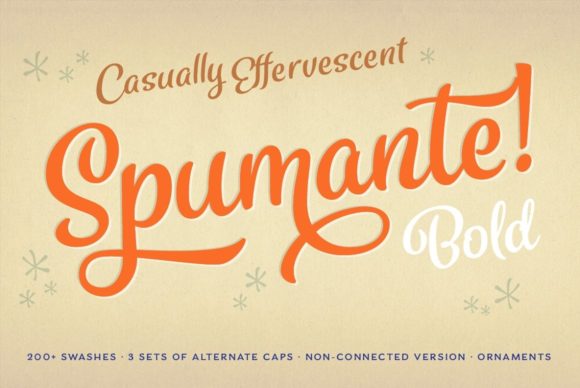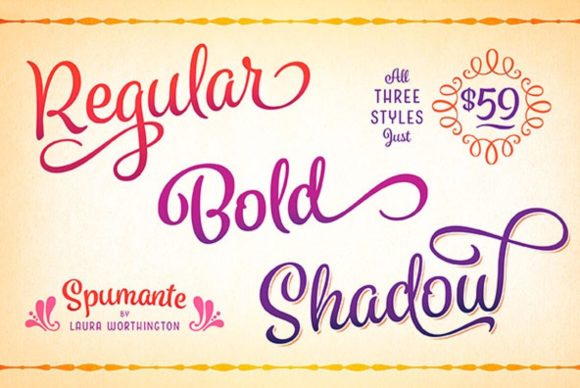
Spumante Font
db-ku.com - Script & Handwritten -- A slim, semi-connected script with lithely upright curves, Spumante conveys the casual effervescence of its namesake wine. Smoothed brush-script letterforms bounce gently along the baseline, and letters vary slightly in their slant— characteristics that combine to create a very human and inviting mood.